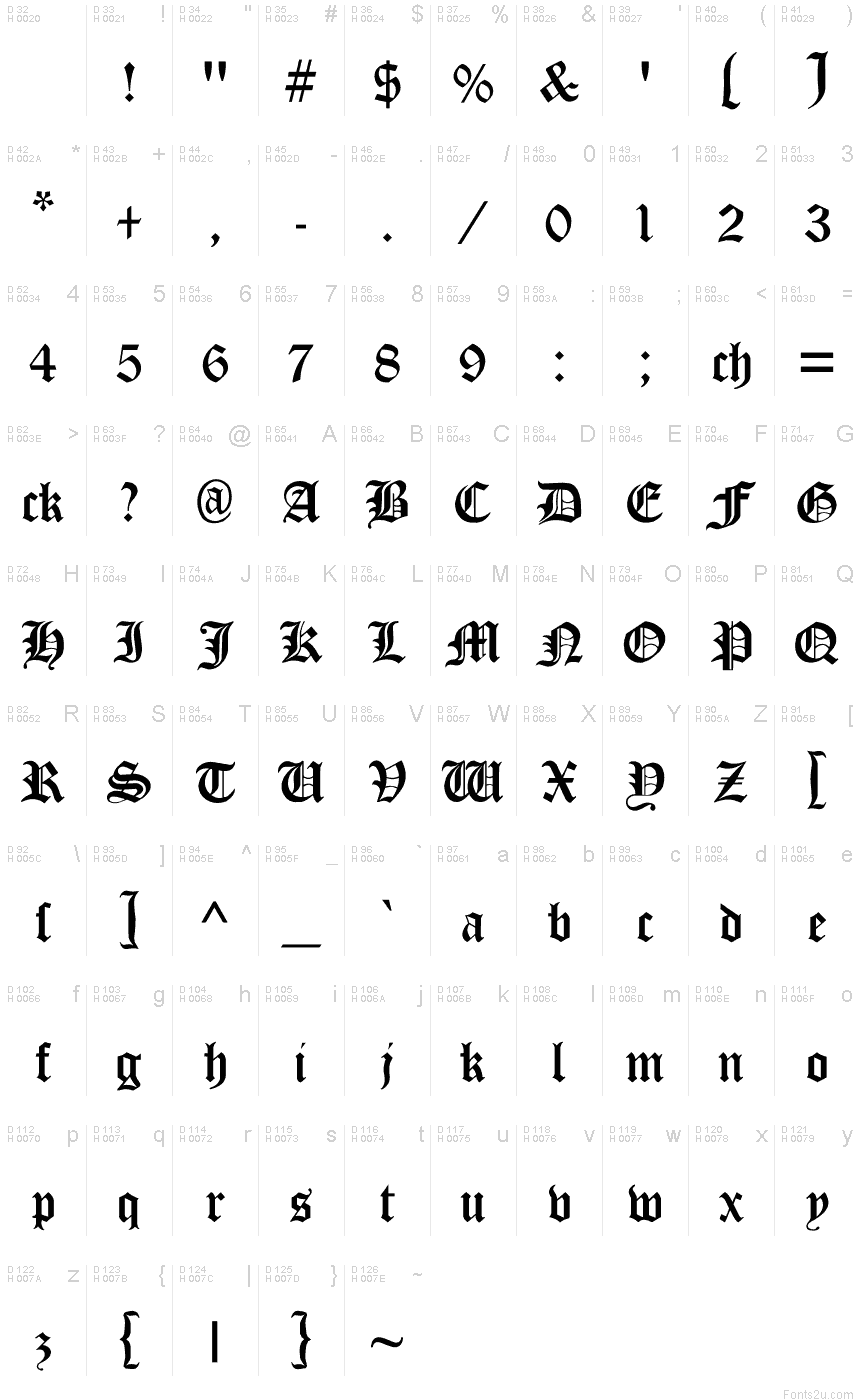
Cloister Black Light
Cloister Black Light font by Typographer Mediengestaltung is a free medieval gothic font from the Cloister Black family. Its sharp, inky strokes and dark blackletter rhythm echo illuminated manuscripts, carved signboards, and old chapel lettering, so even a short headline feels storied, ceremonial, and a little dramatic.
Using Cloister Black Light works beautifully for fantasy book covers, pub or mead labels, metal and folk album art, game titles, Renaissance fair posters, tattoo branding, and moody event flyers. This free font shines best in short lines or large titles; pair it with a plain sans serif for body text so the ornate texture can really breathe.